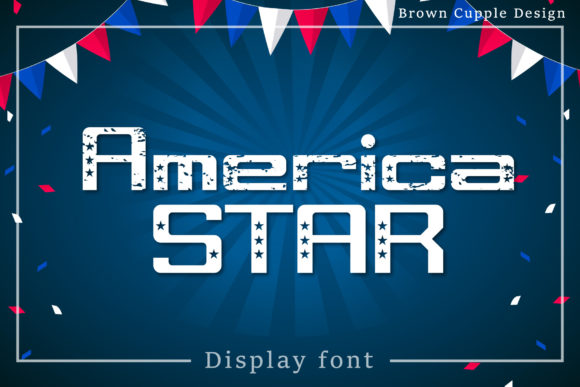
Introducing America Star Font: The Ultimate Font for Making a Bold Statement
Are you ready to captivate your audience with fonts that exude confidence and leave a lasting impression? Look no further than America Star Font, the most adventurous and stylish display font that will elevate your designs to new heights.
Crafted by the masterminds at Brown Cupple Fonts, America Star Font is a bold and assertive font that demands attention. Its sharp edges and dynamic curves create a striking visual impact, making it the perfect choice for grabbing the spotlight in all your creative endeavors.
Say goodbye to ordinary fonts and embrace the extraordinary with America Star Font. This font is not just a collection of letters; it's a gateway to expressing your individuality and captivating your audience. Whether you're creating captivating blog posts, eye-catching logos, or unforgettable branding materials, America Star Font will add a touch of boldness and charisma that will leave everyone in awe.
Unleash your creativity and let America Star Font be your guide. With its versatility, you can effortlessly add a touch of sophistication to invitations, greeting cards, and planners. It will transform your photo albums into cherished memories, and add a touch of elegance to decorations that will make any occasion special.
America Star Font is more than just a font; it's a powerful tool that will empower you to create designs that resonate with your audience. Its captivating presence will draw attention to your messages, making them unforgettable and impactful.